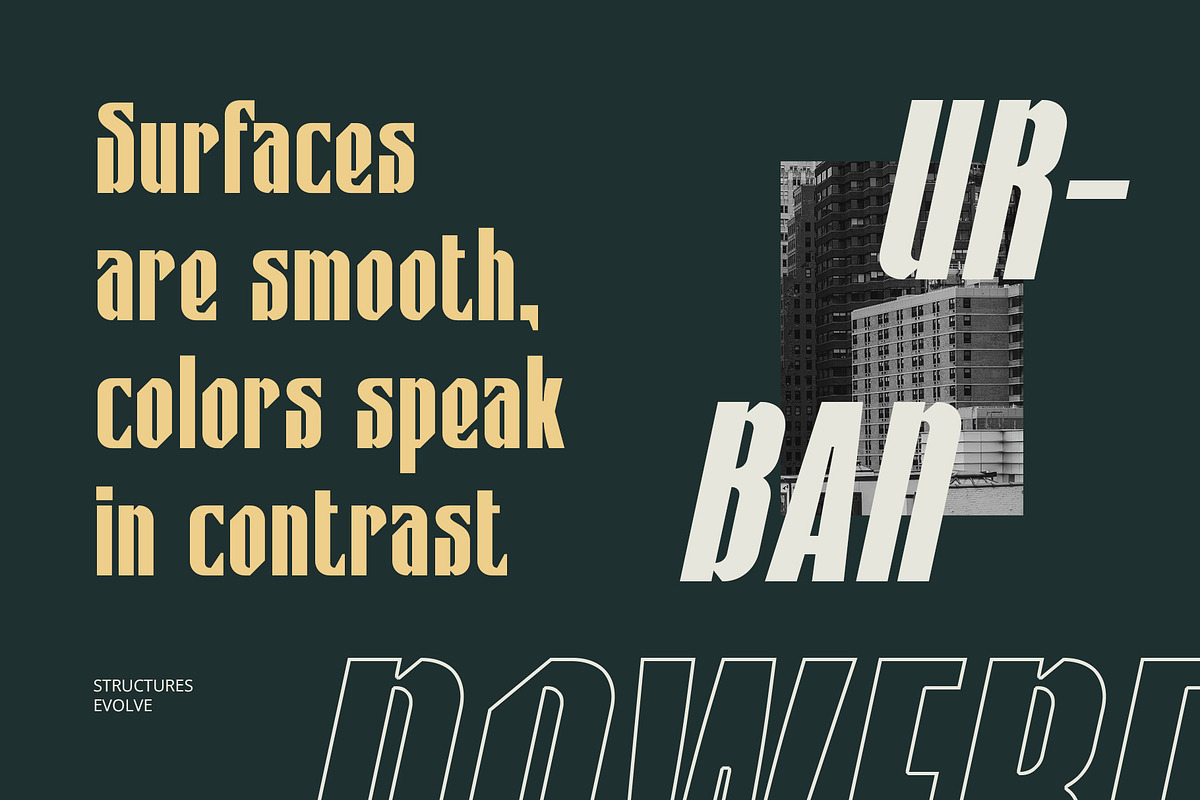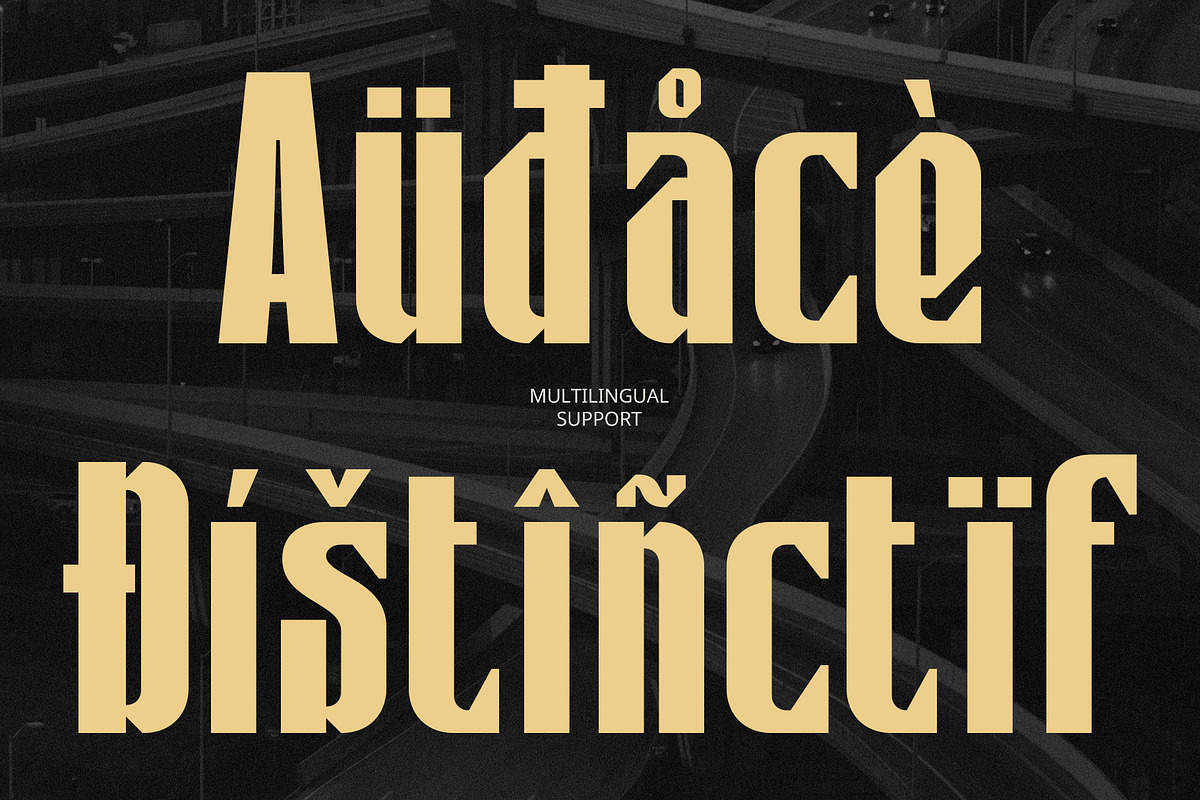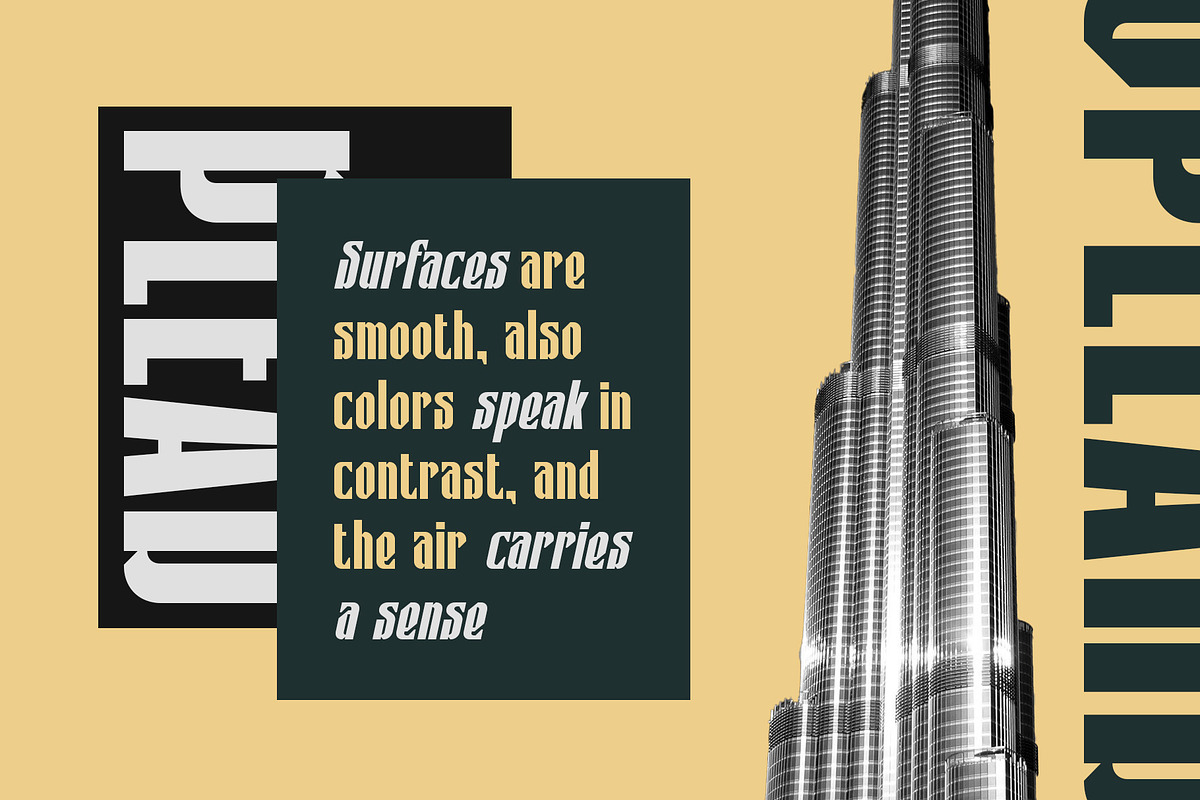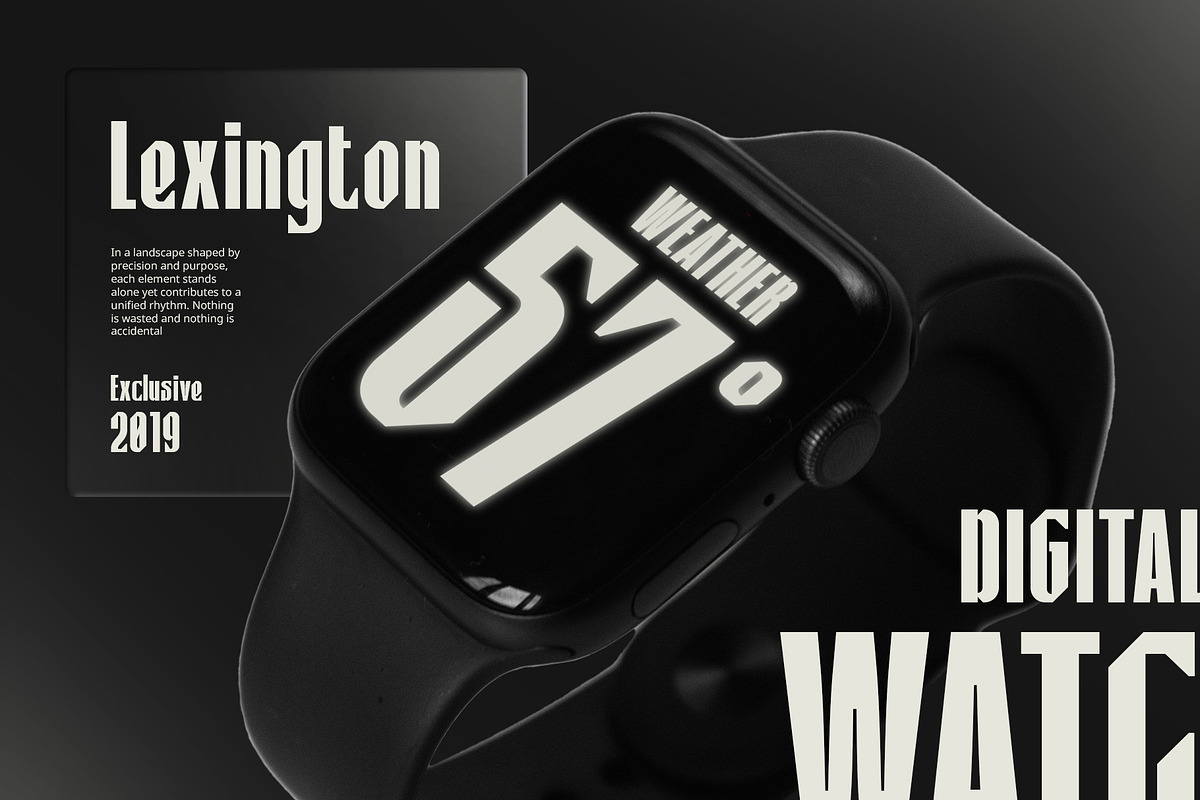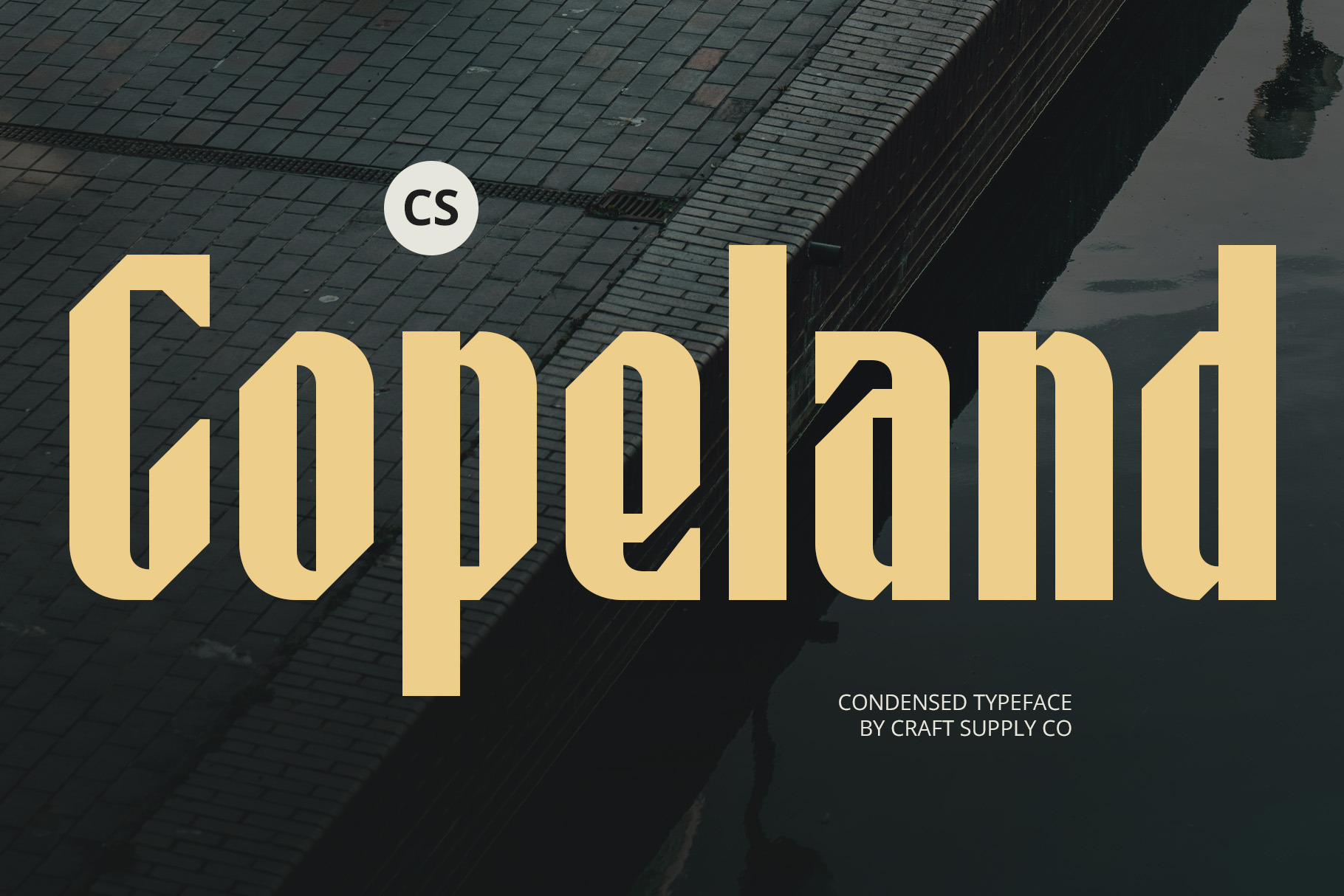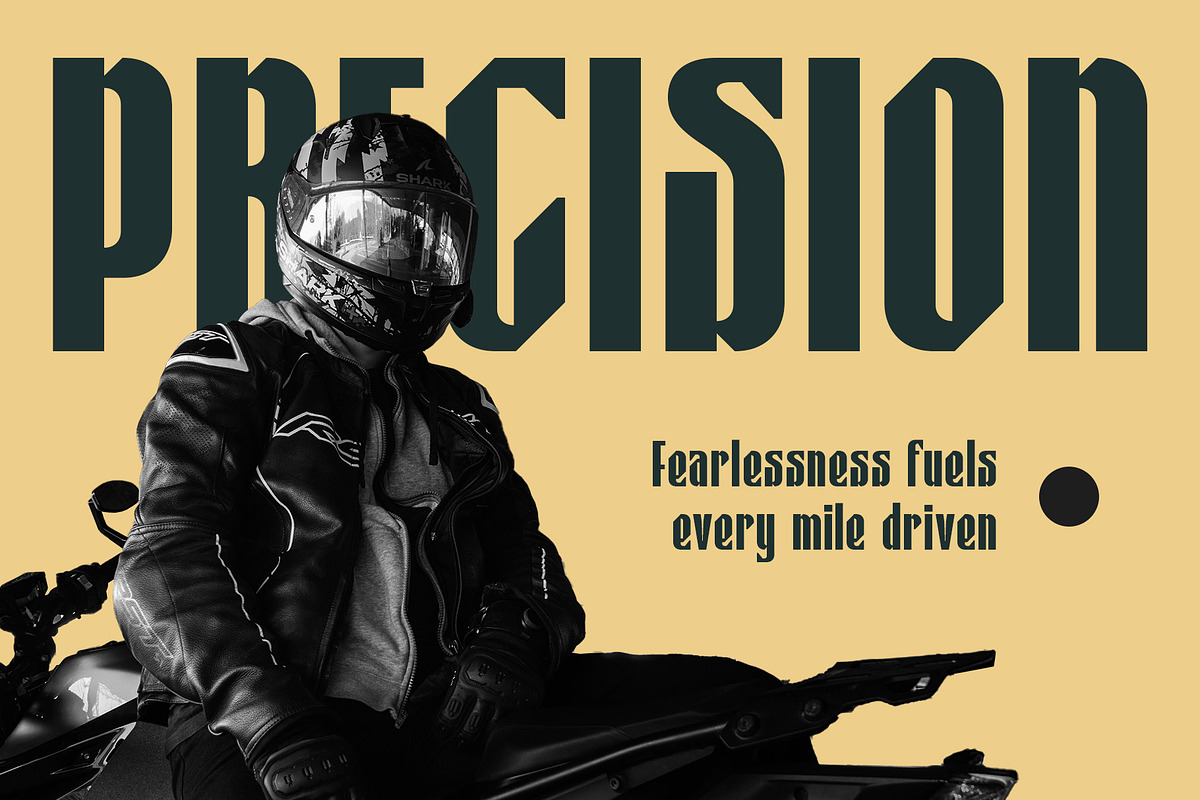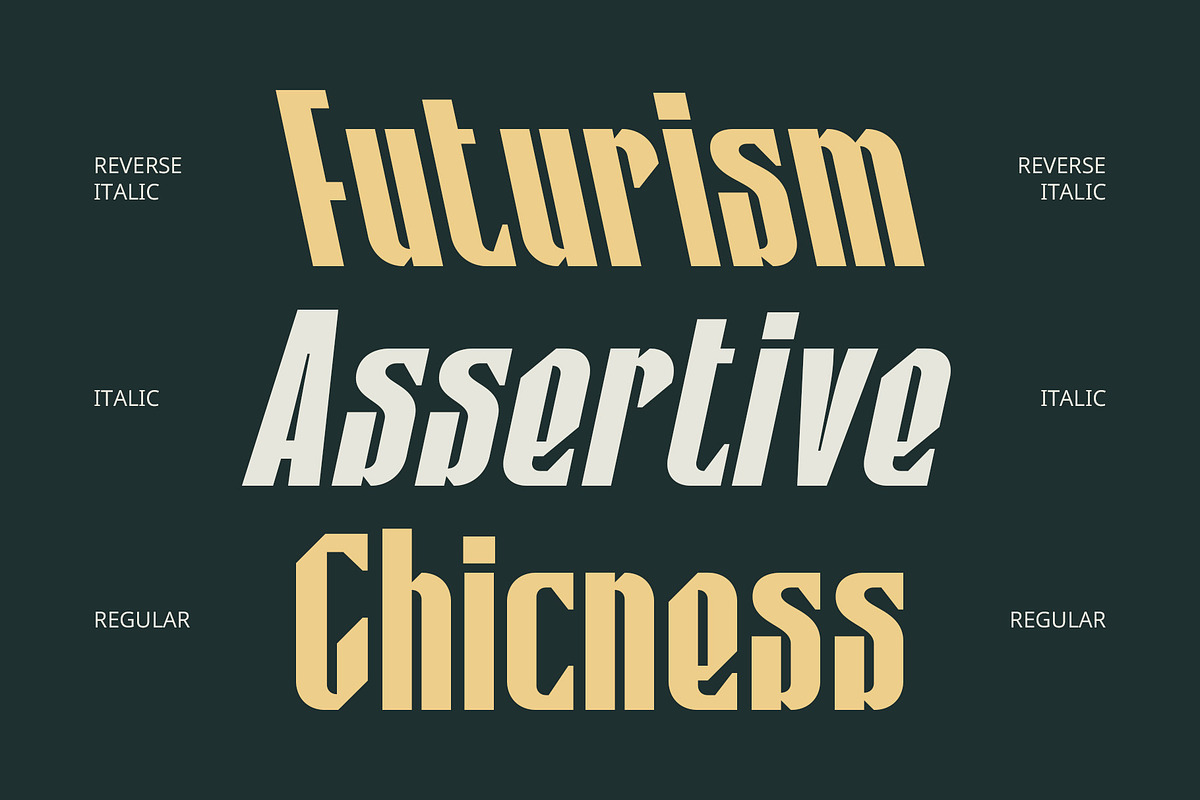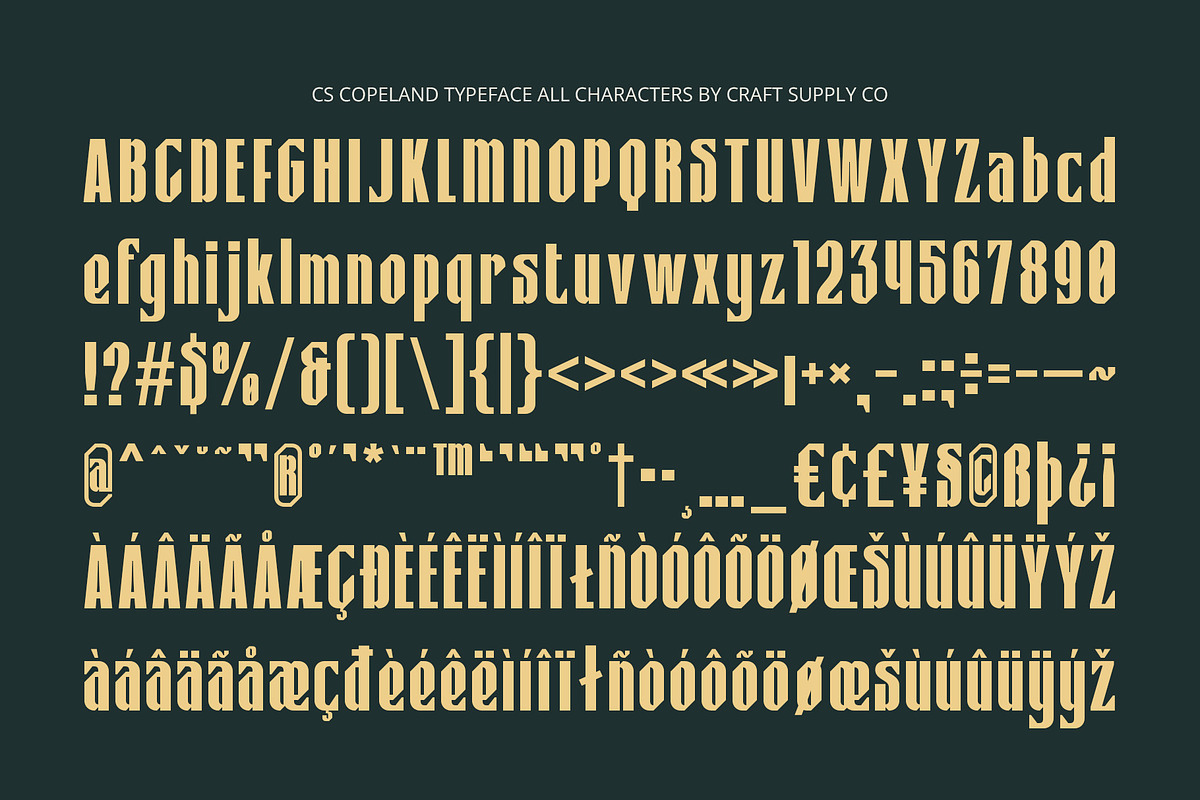
CS Copeland – Condensed Font
CS Copeland – Condensed Font: Compact Style with Bold Impact
Clean and Bold Contemporary Design CS Copeland is a modern sans serif font with a condensed, bold structure that brings a strong and confident visual presence. Its slim letterforms and clean lines make it ideal for creating sharp and impactful designs, especially where space is limited but style must remain uncompromised.
Slim Form for Space Efficiency With its narrow proportions, CS Copeland is built for space-conscious layouts. It allows designers to fit more text without sacrificing clarity—perfect for headlines, banners, and layouts that demand compact yet readable typography.
Stylish and Confident Visual Identity The font’s balanced construction and contemporary edge give it a cool, stylish appeal. It carries a tone of modern professionalism while remaining approachable and memorable, making it suitable for digital content, branding, and creative visuals that need to stand out.
Ideal for Versatile Design Needs Whether used in branding, posters, social media graphics, or editorial layouts. CS Copeland’s combination of form and function makes it highly versatile for a wide range of creative needs. It performs excellently in branding, editorials, social media visuals, packaging, and UI/UX design, providing a dynamic yet refined typographic presence. Whether your goal is to look bold, modern, or forward-thinking, this font helps your message stand tall—even in tight spaces.
- CS Copeland Regular
- CS Copeland Italic
- CS Copeland Reverse Italic